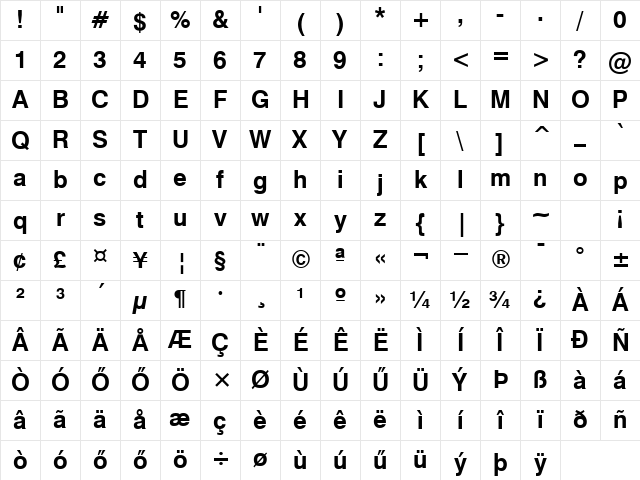
H_Swiss 721 BT Bold Free Font
H_Swiss 721 BT Bold
H_Swiss 721 BT Family
Complete H_Swiss 721 BT Bold glyph index. Displaying only characters natively supported by H_Swiss 721 BT Bold font.
Design Context for H_Swiss 721 BT
H_Swiss 721 BT is a composed and adaptable typeface that performs quietly and consistently across a wide range of design contexts. Its bold stroke weight gives it real presence on the page.